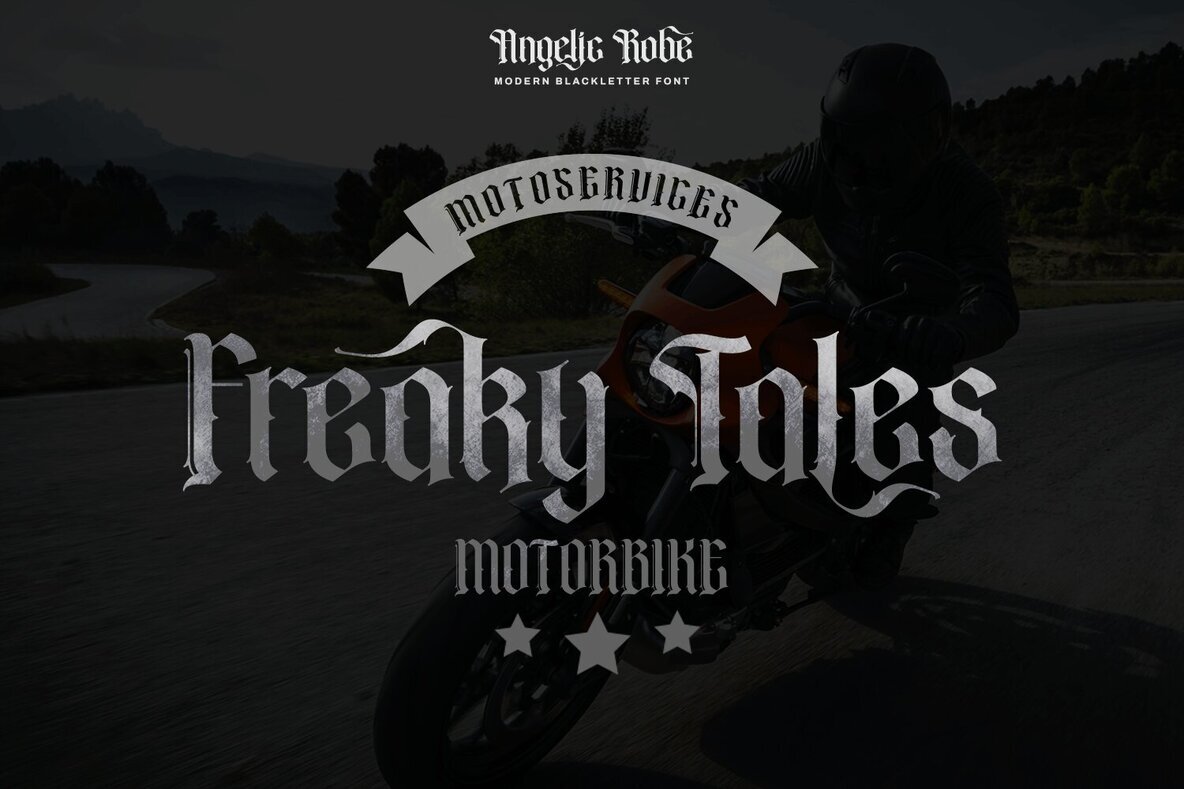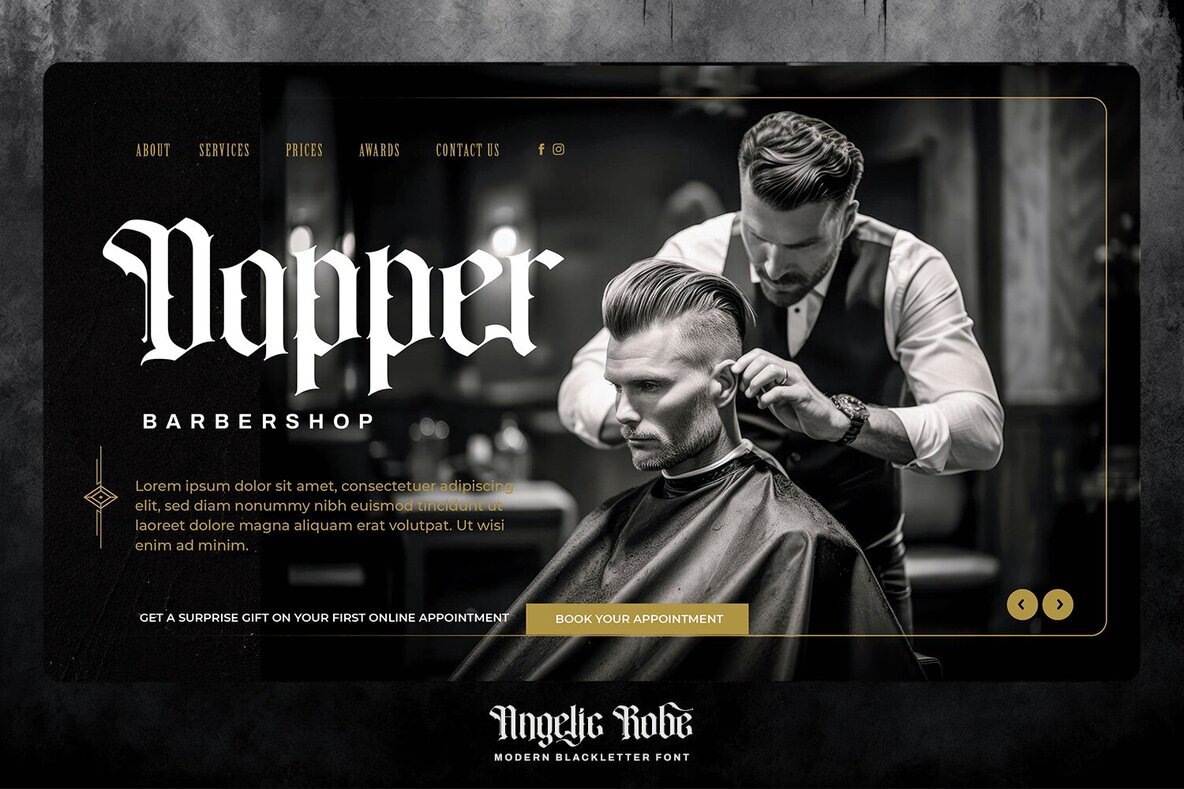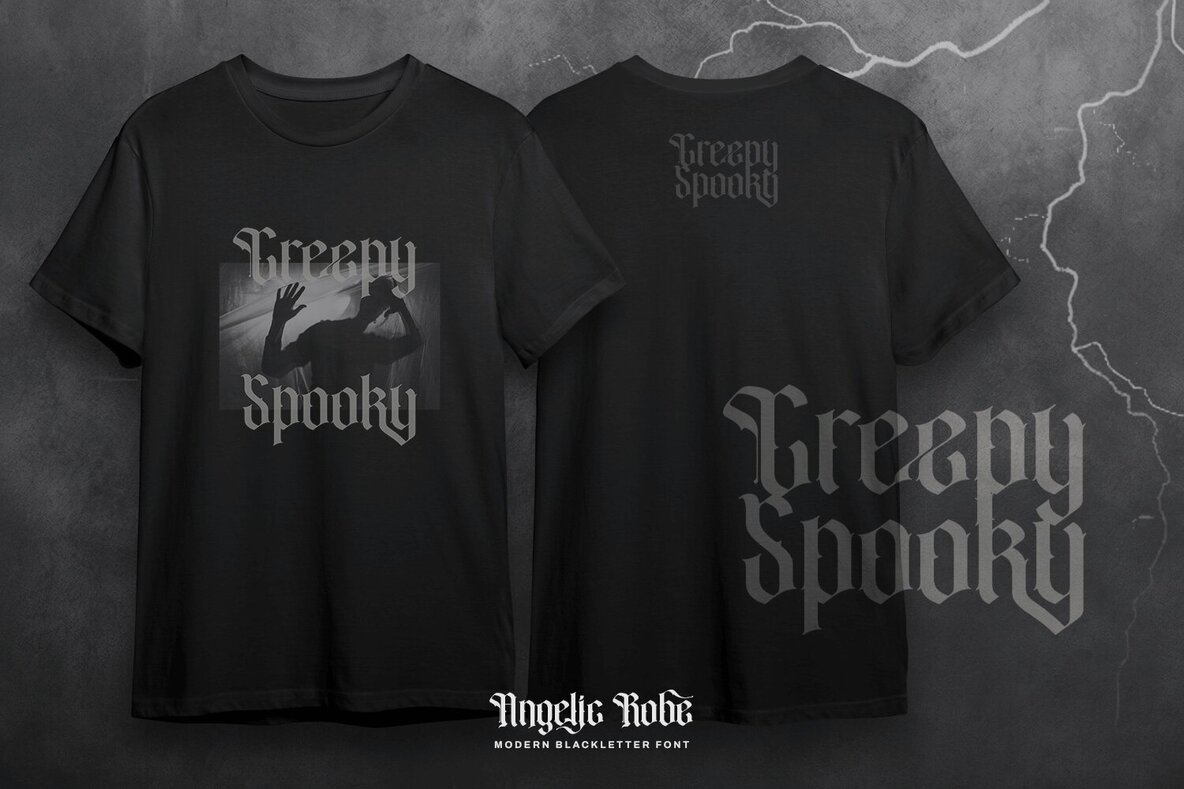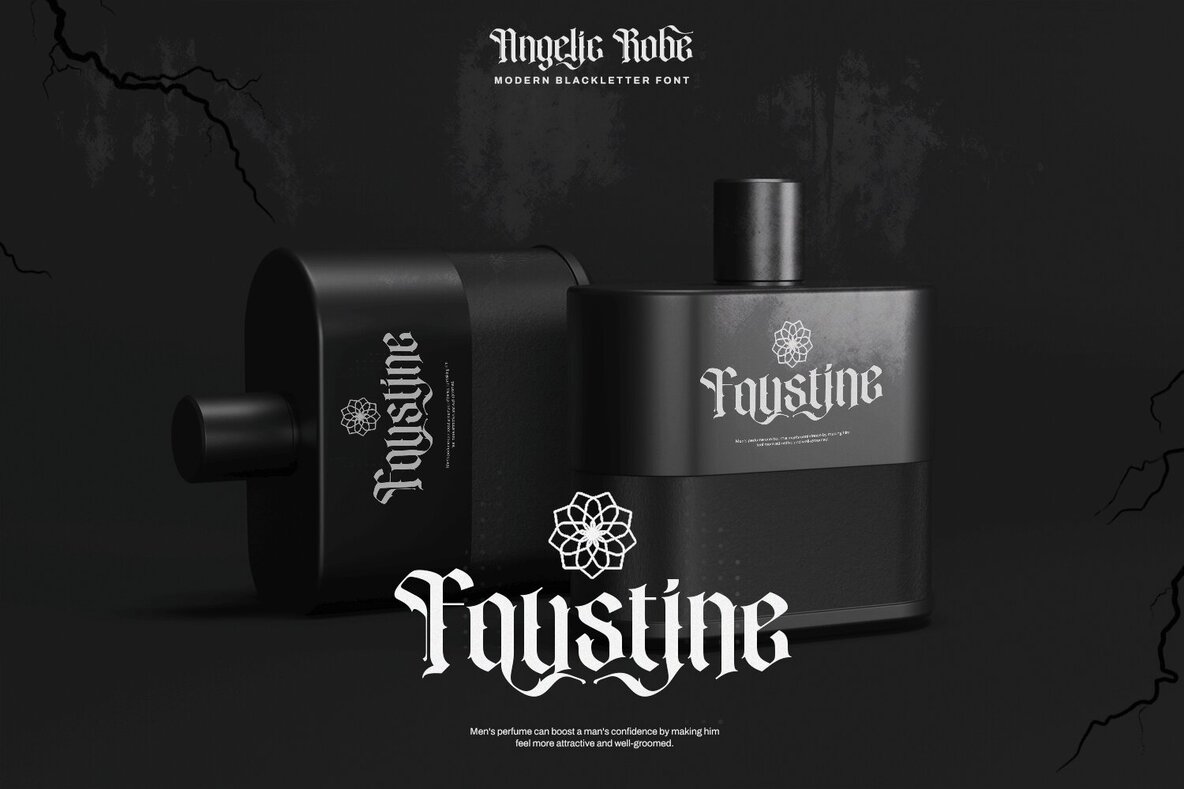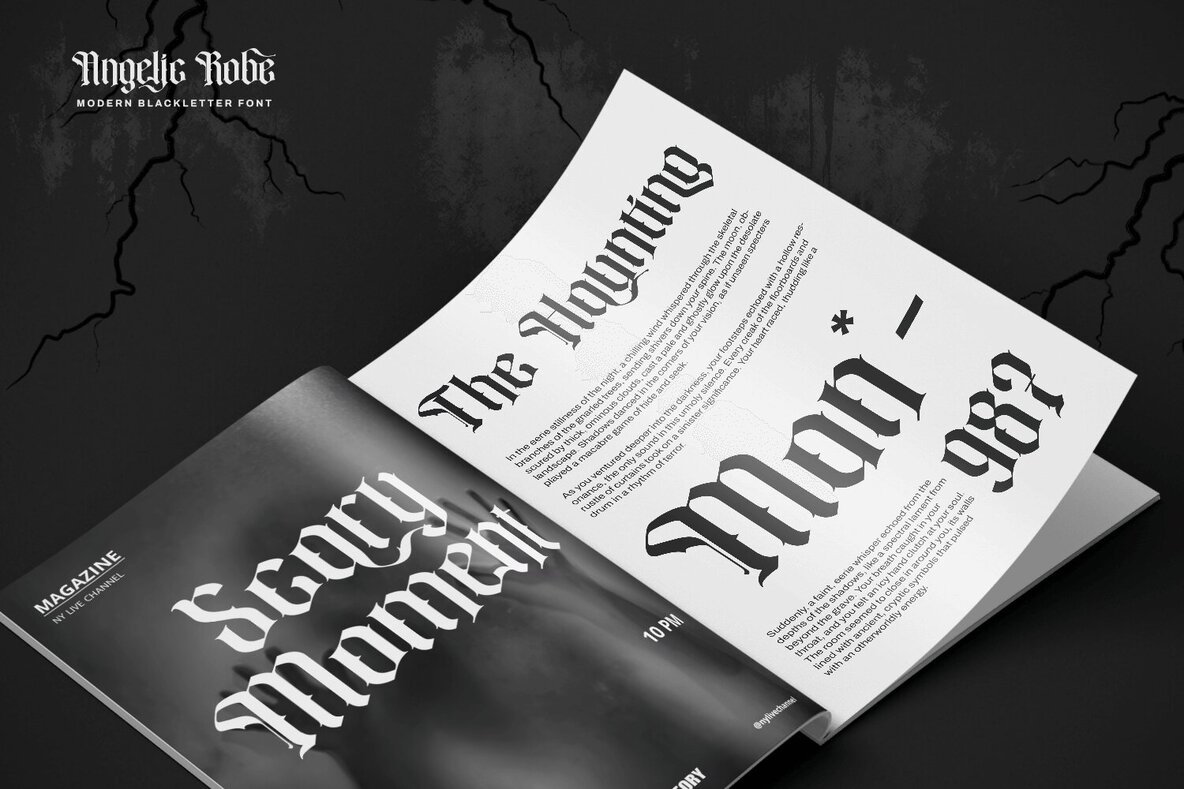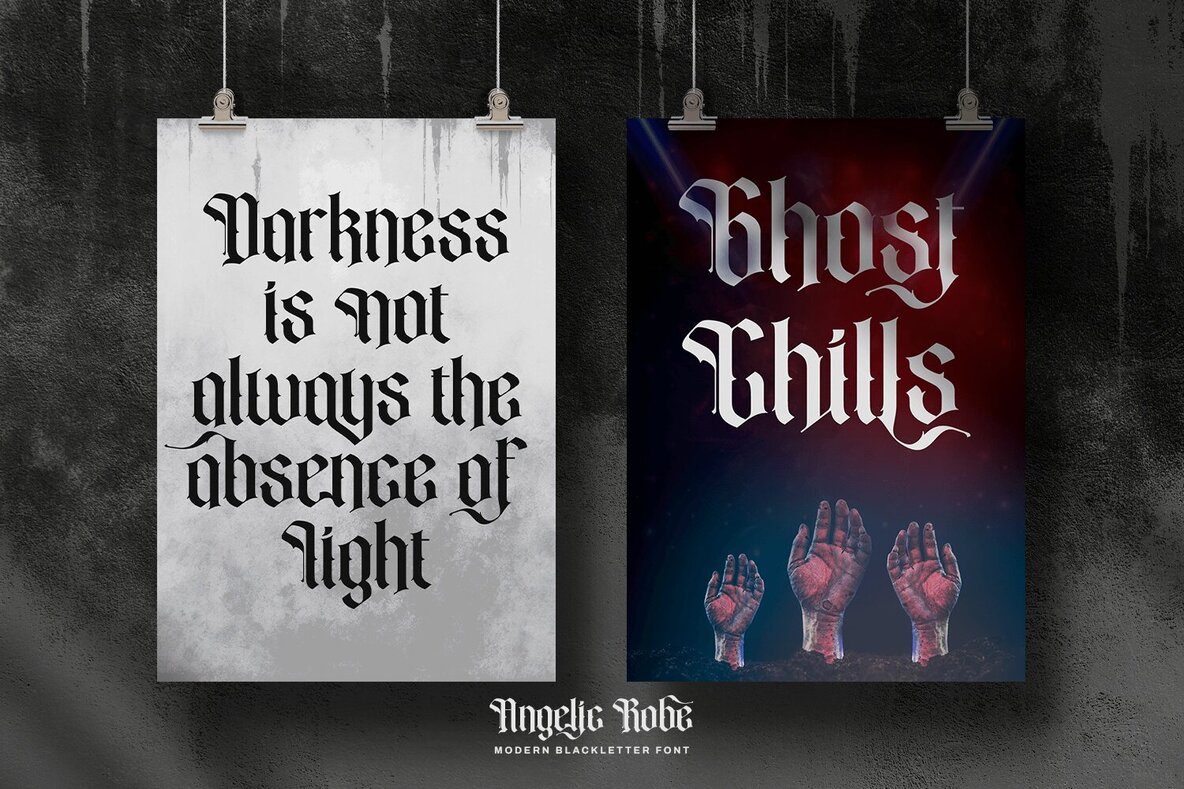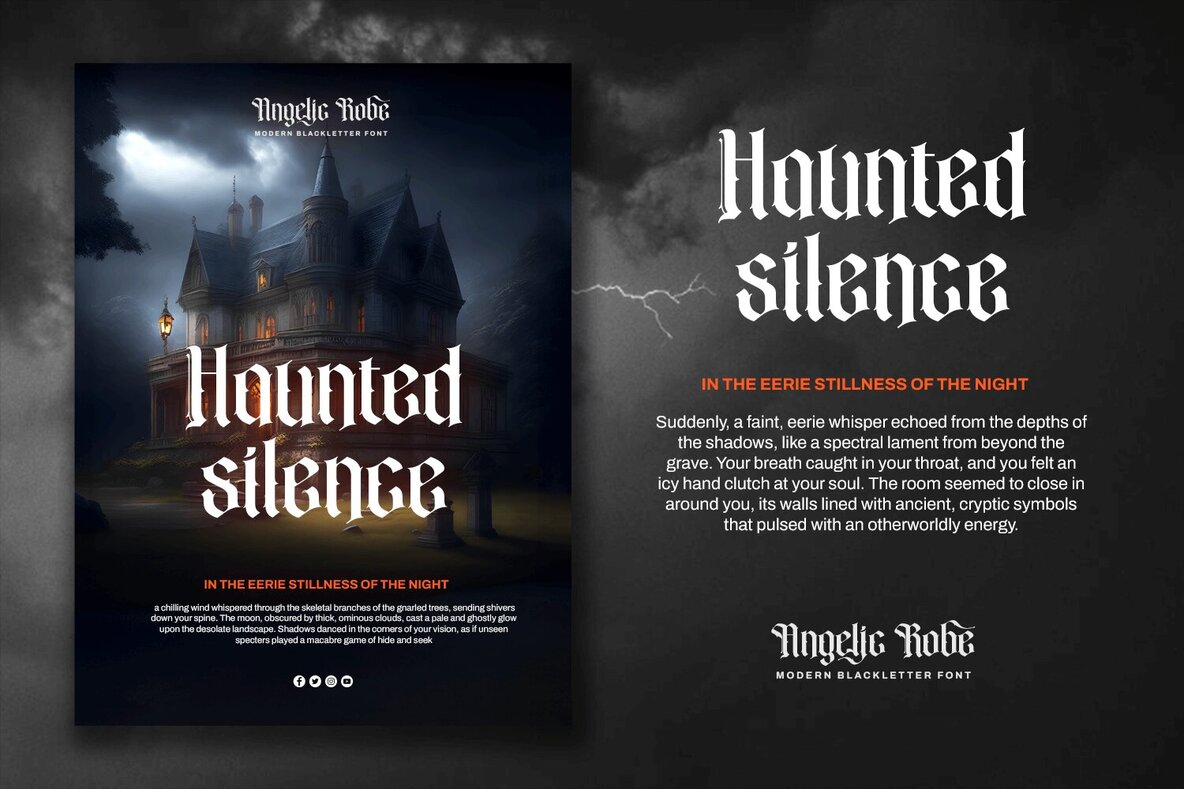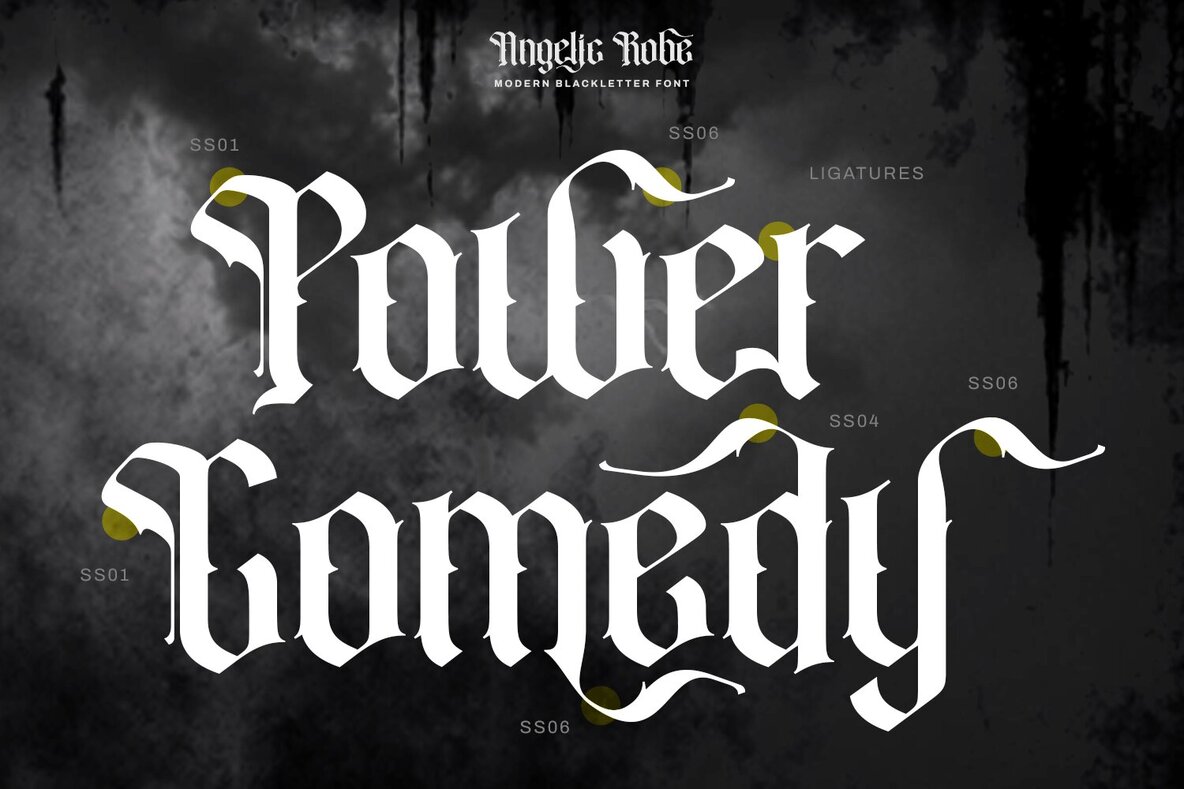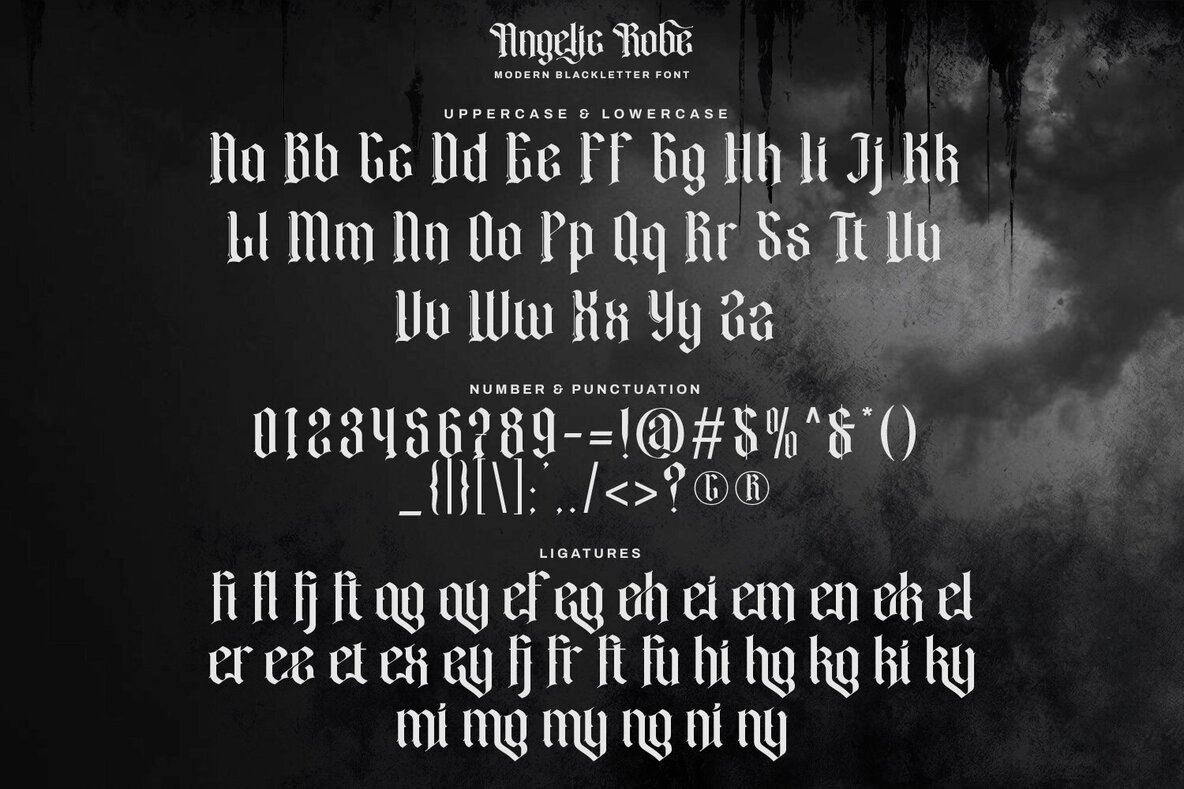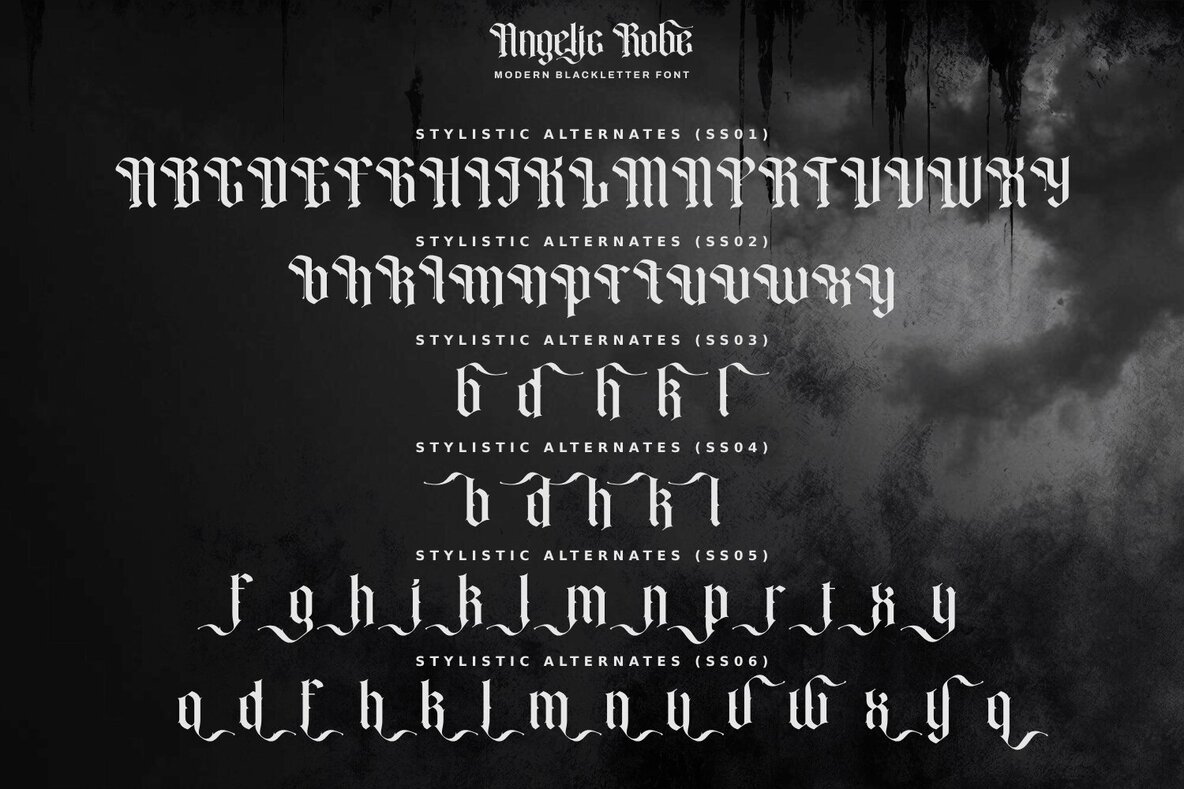
Angelic Robe Font
Angelic Robe is a modern blackletter font combining timeless elegance with a contemporary twist. Ideal for branding, logotypes, social media posts, advertisements, product packaging, labels, photography, watermarks, t-shirts, website design, invitations, and stationery. Add a touch of modern blackletter charm to your projects.